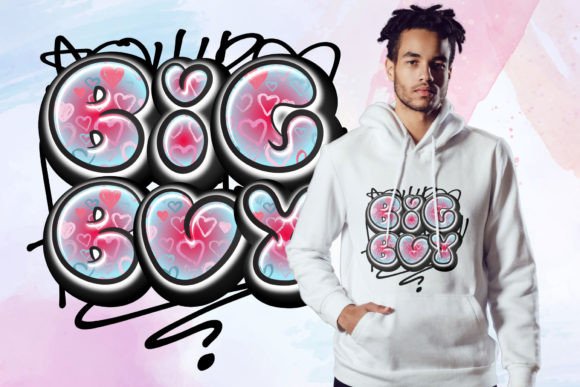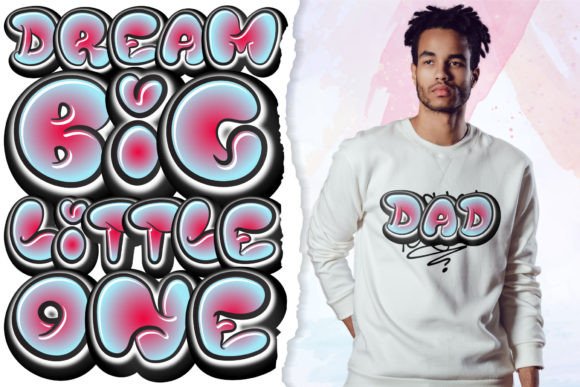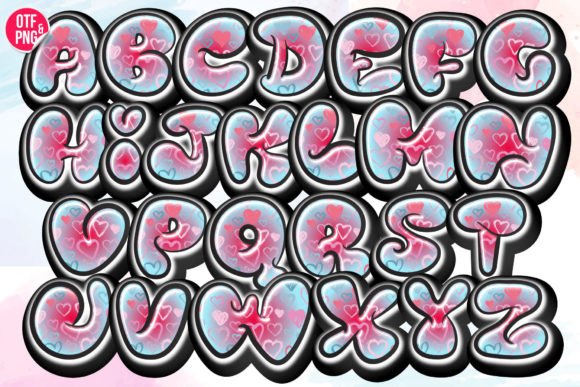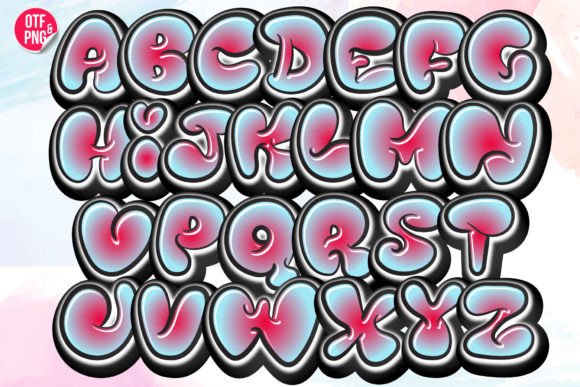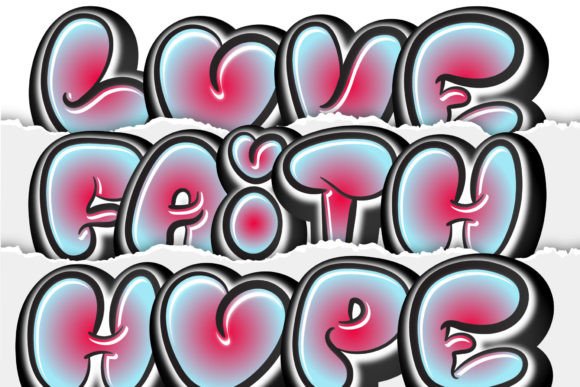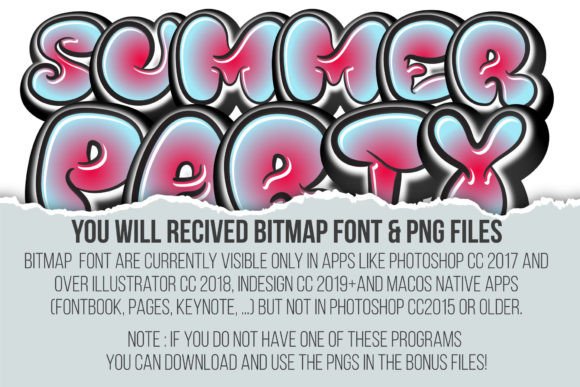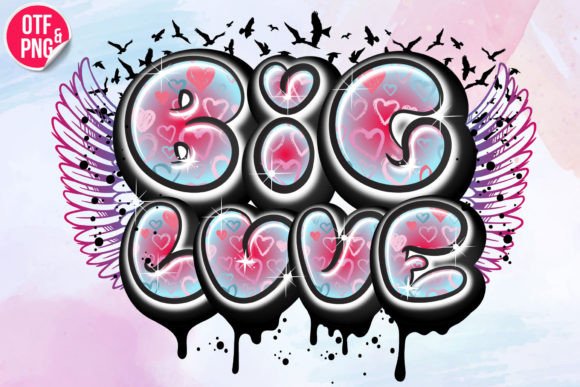
Introducing Big Love Font: The Ultimate Urban Touch for Your Designs
Are you looking for a font that adds a dash of urban grit to your designs? Look no further than Big Love Font, a vibrant and edgy graffiti-styled color font that’s perfect for designers and crafters who want to take their work to the next level. With Big Love Font, the only limit is your imagination!
What is Big Love Font?
Big Love Font is a unique and eye-catching font that’s inspired by the raw energy of graffiti art. Its bold, colorful, and dynamic design makes it perfect for adding an urban touch to any design project. Whether you’re working on a branding campaign, a marketing project, or a personal craft, Big Love Font is sure to make a statement.
Key Features of Big Love Font
- Graffiti-styled design: Big Love Font features a bold and colorful design that’s inspired by the urban art of graffiti.
- Color font: Unlike traditional fonts, Big Love Font comes in a range of colors, allowing you to add an extra layer of depth and dimension to your designs.
- Urban touch: Big Love Font is perfect for designs that require an urban or edgy feel, such as branding campaigns, posters, and flyers.
How to Use Big Love Font in Your Designs
Big Love Font is a versatile font that can be used in a variety of design projects. Here are some ideas to get you started:
- Branding campaigns: Use Big Love Font to add a bold and edgy touch to your branding campaigns, such as logos, business cards, and letterheads.
- Posters and flyers: Big Love Font is perfect for creating eye-catching posters and flyers that require a bold and attention-grabbing design.
- Social media graphics: Use Big Love Font to create social media graphics that stand out from the crowd, such as Facebook posts, Instagram stories, and Twitter headers.
- Crafting projects: Big Love Font is also perfect for crafters who want to add a personal touch to their projects, such as handmade cards, scrapbooking, and DIY crafts.
Tips and Tricks for Getting the Most Out of Big Love Font
Here are some tips and tricks for getting the most out of Big Love Font:
- Experiment with colors: Big Love Font comes in a range of colors, so don’t be afraid to experiment and find the perfect color combination for your design.
- Mix and match: Try mixing and matching Big Love Font with other fonts to create a unique and eye-catching design.
- Keep it simple: While Big Love Font is a bold and eye-catching font, it’s best to keep your design simple and clean to avoid overwhelming the viewer.